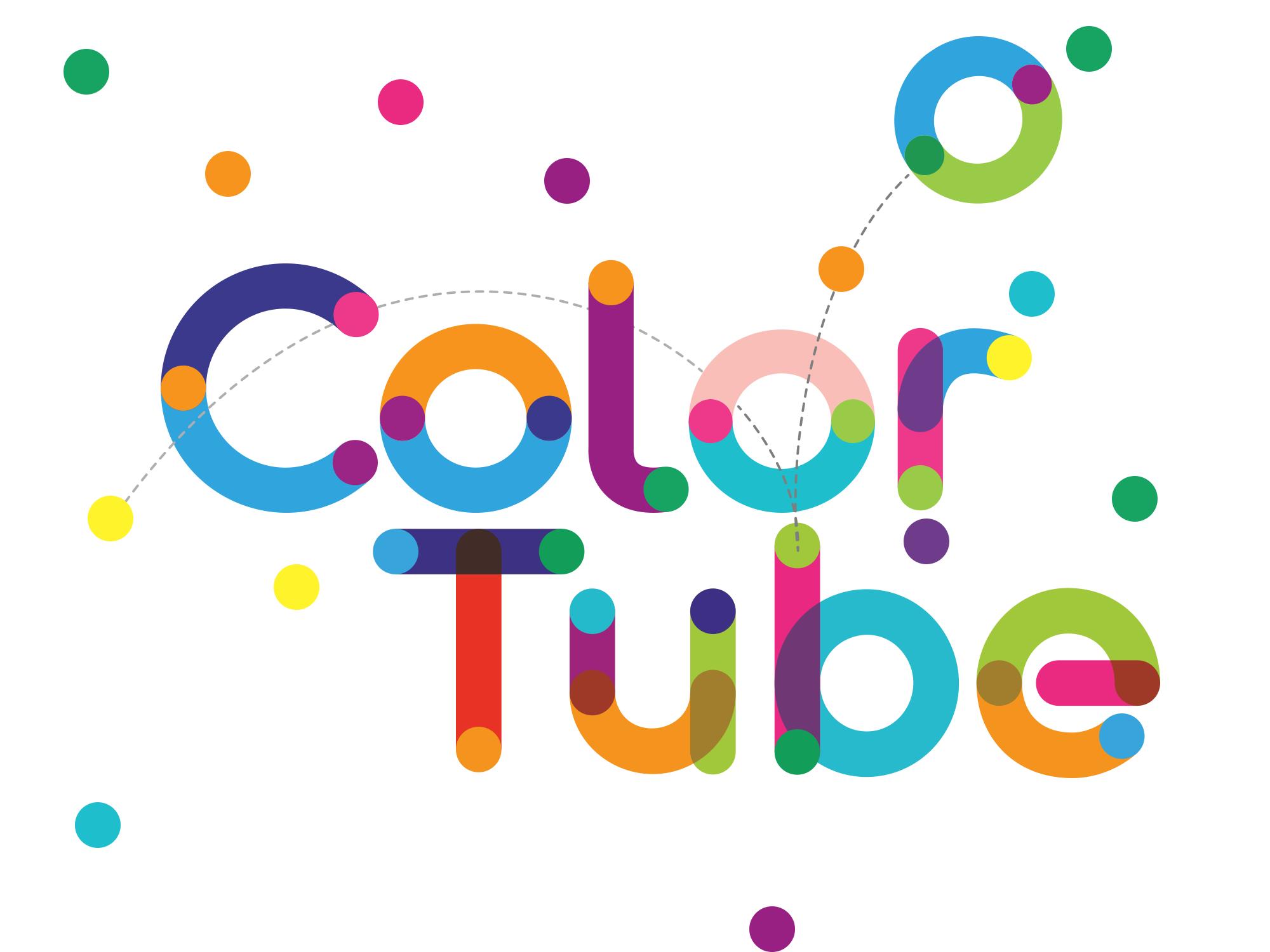
Color Tube Pro Font Font Description
Color Tube is a playful and colorful font that you can use for children's books, school projects, t-shirts, and anything else you have in mind.